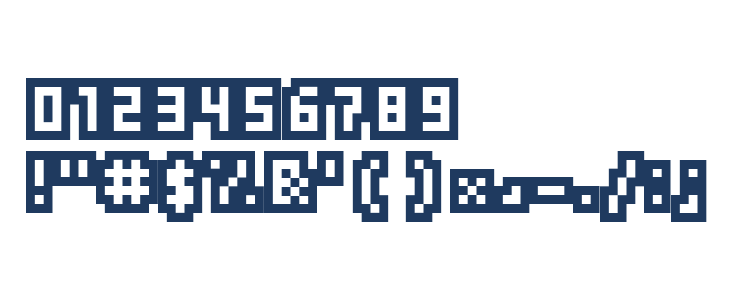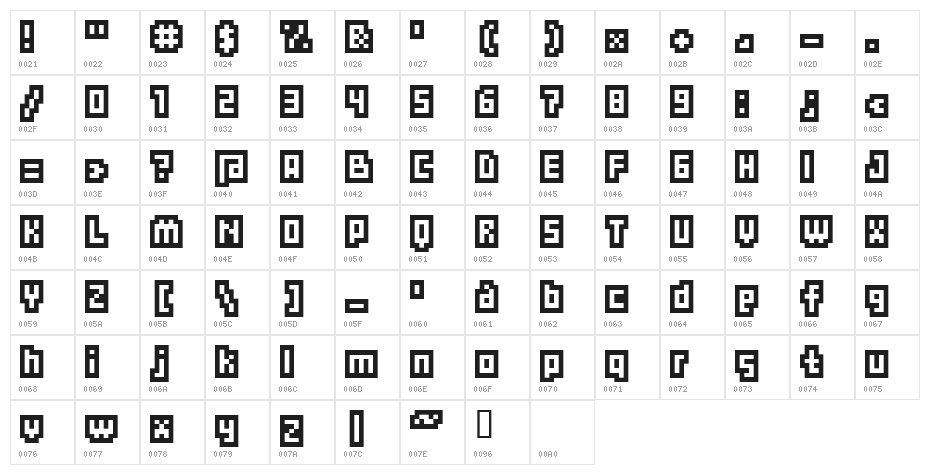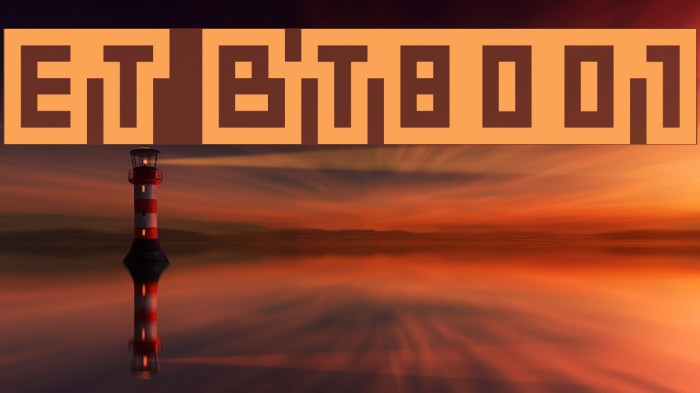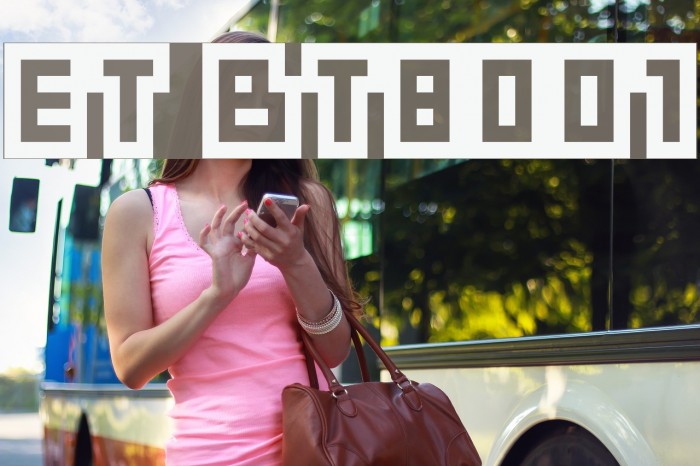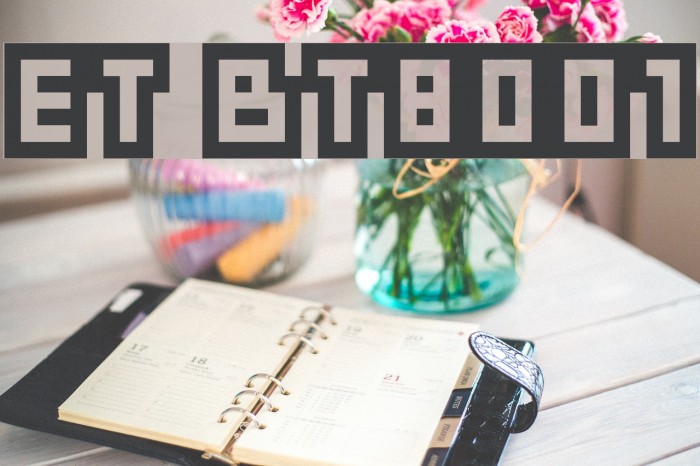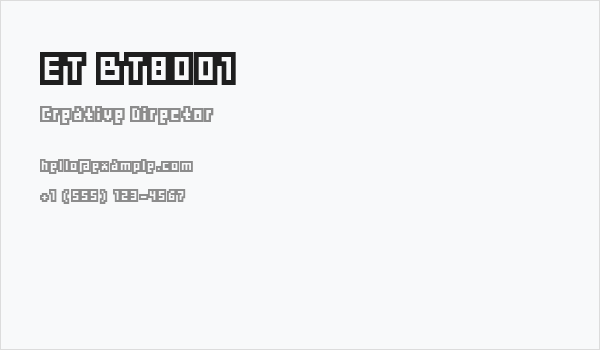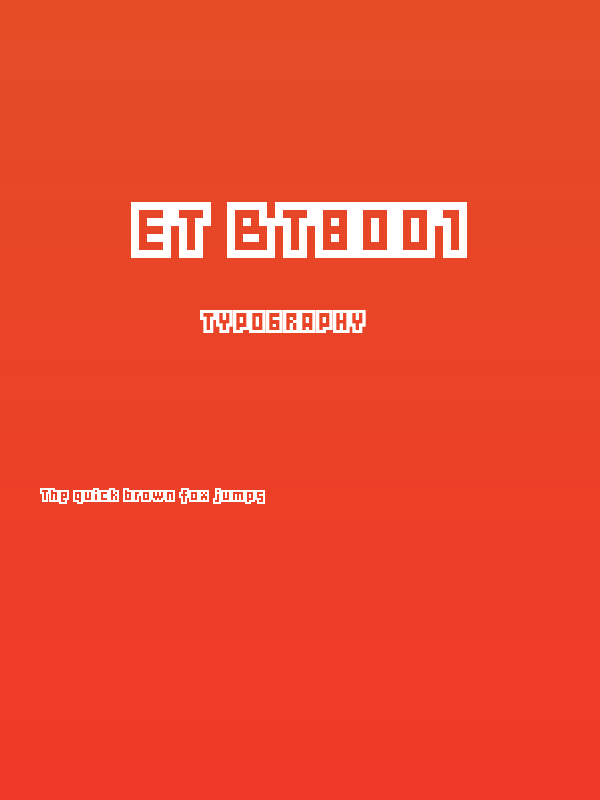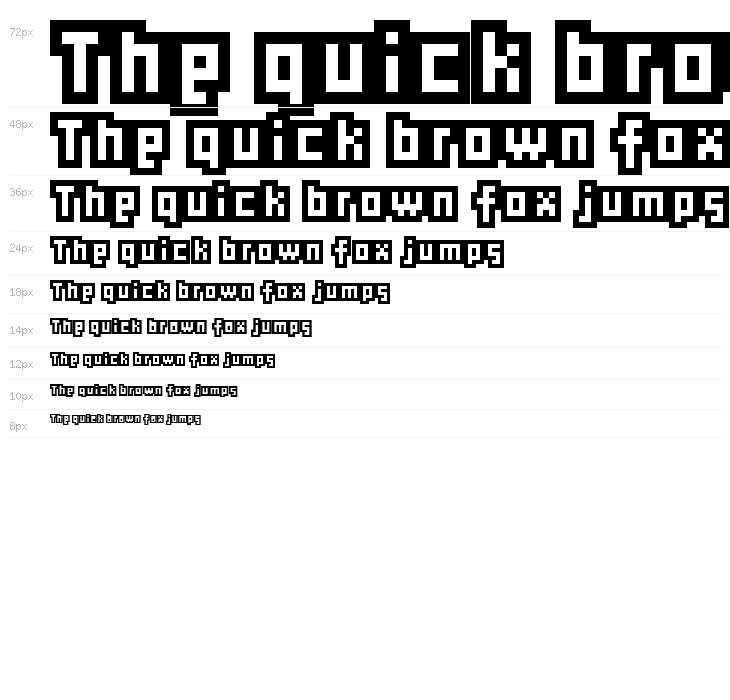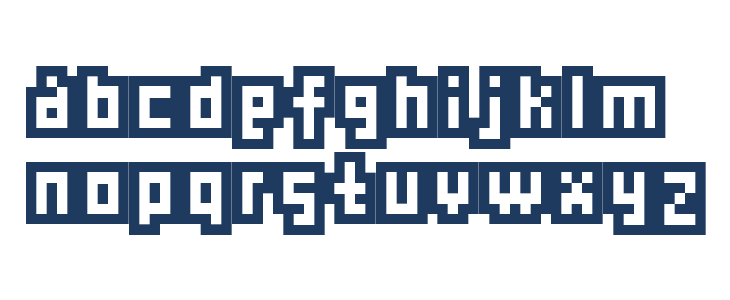
ET BT8001 Font
ET BT8001 Description
This font features a bold, pixelated design reminiscent of retro video game aesthetics. Each character is constructed with a blocky, square-like structure, giving it a distinctly digital feel. The uppercase and lowercase letters maintain a consistent height, contributing to a uniform appearance. The numbers and special characters follow the same pixelated style, ensuring a cohesive look across all glyphs. The font's thick strokes and sharp angles make it highly legible, even at smaller sizes. Its unique style is both nostalgic and modern, appealing to those looking for a distinctive, tech-inspired typeface.
| Overall Style | Retro, Digital |
| Proposed Projects | Ideal for video game graphics, retro-themed posters, digital art projects, and tech-related branding. |